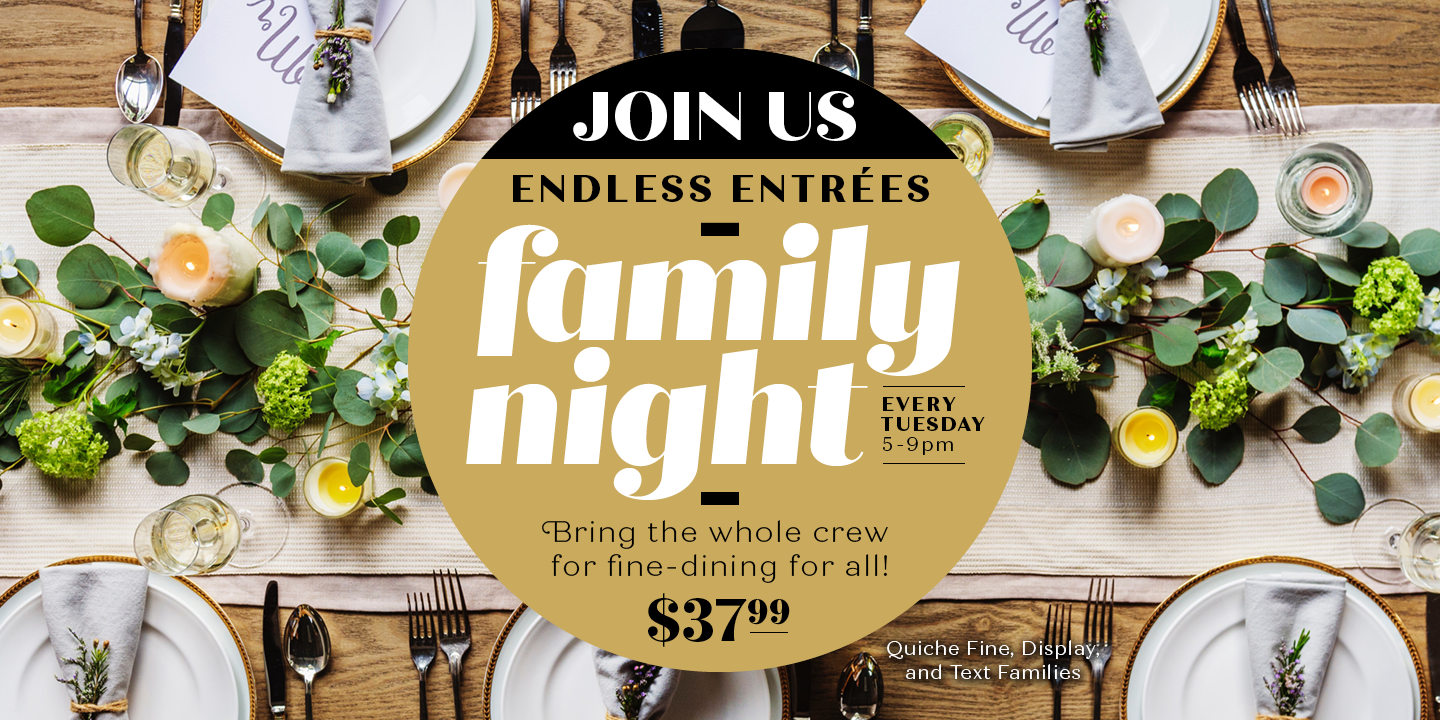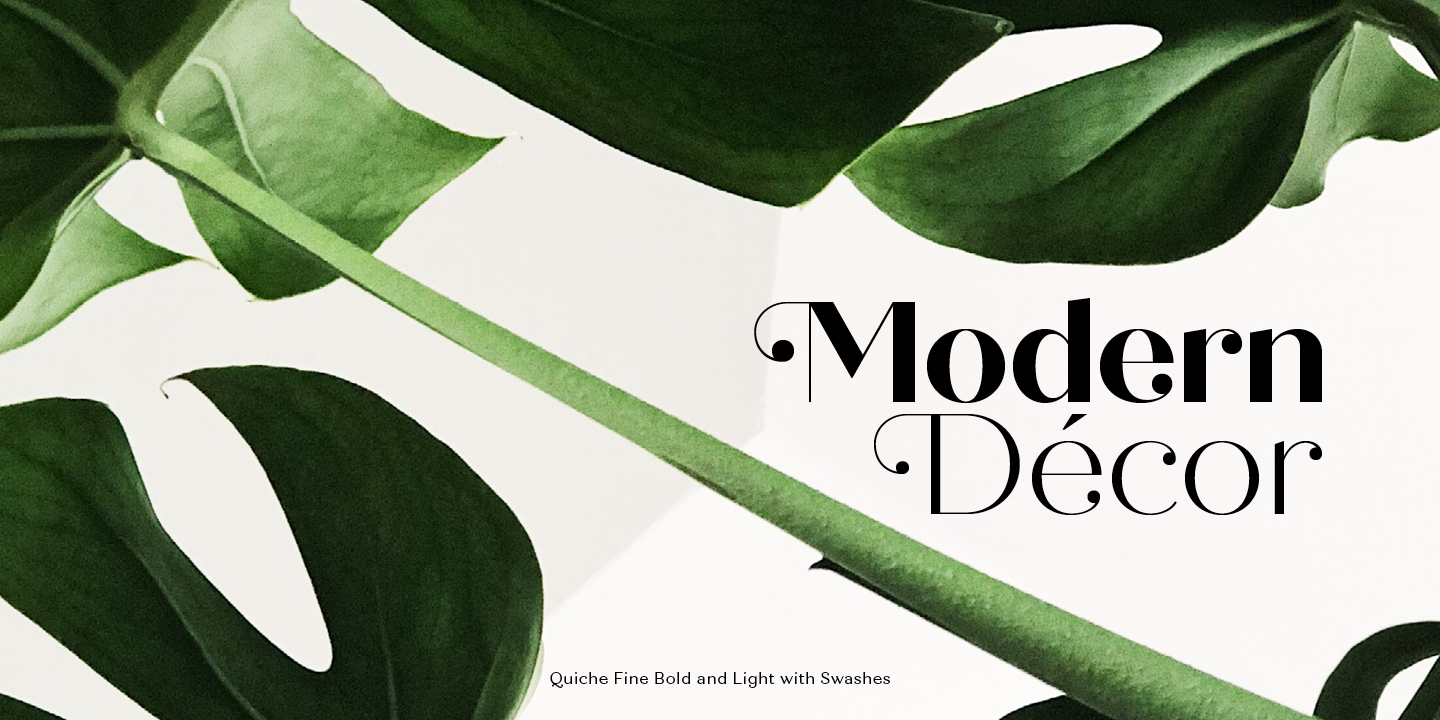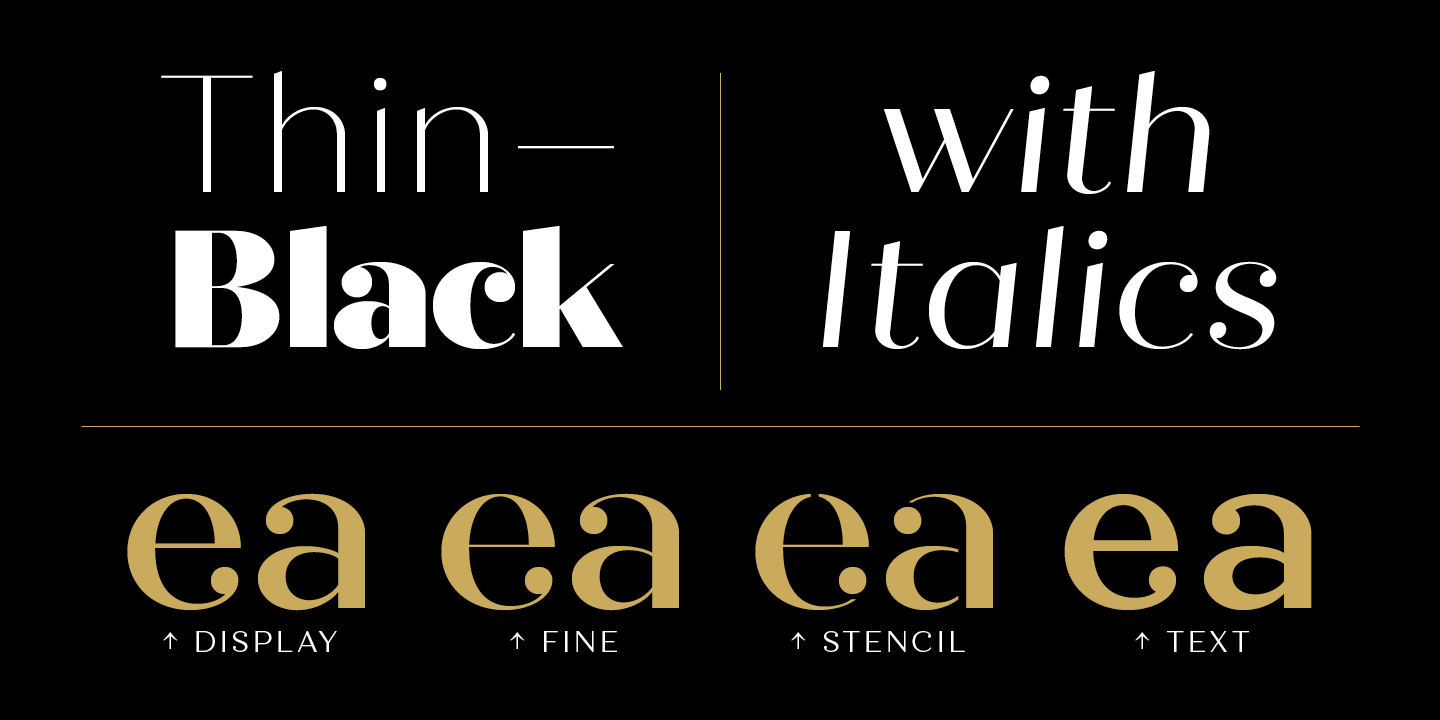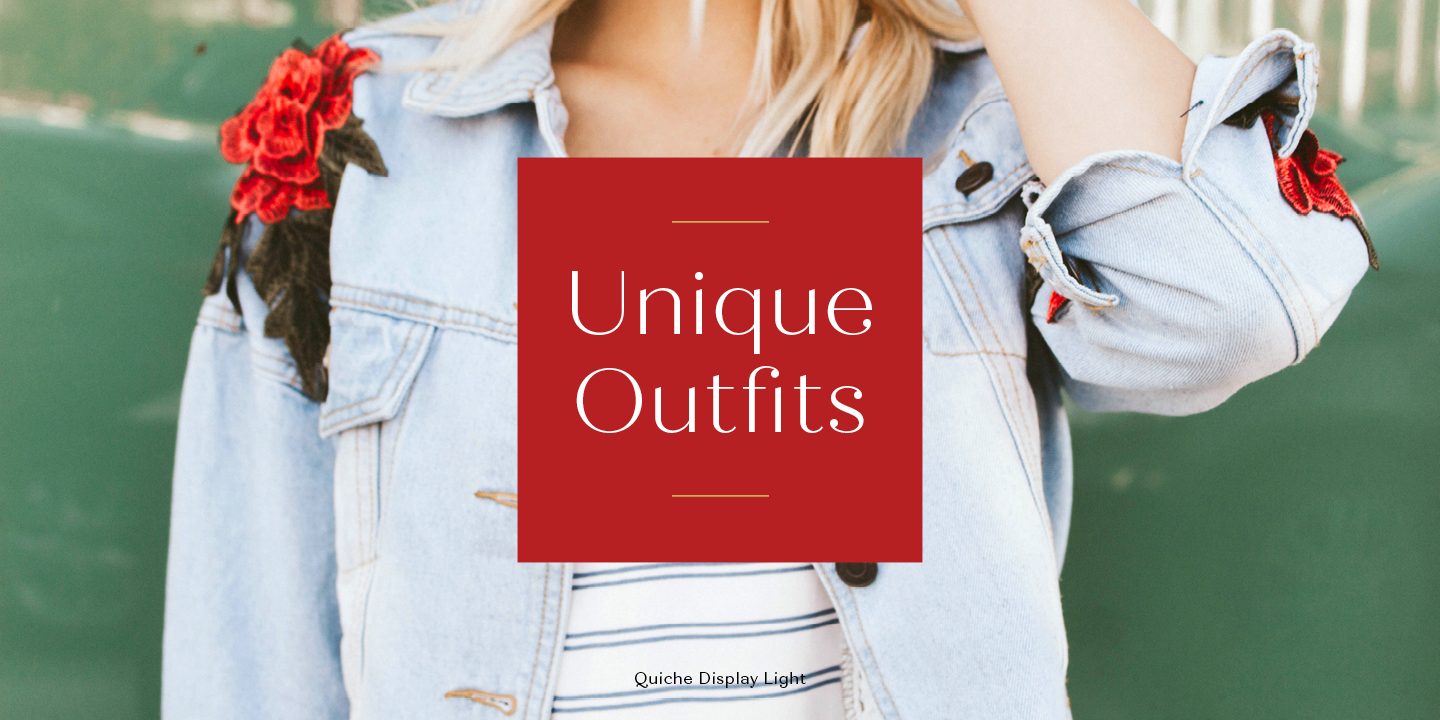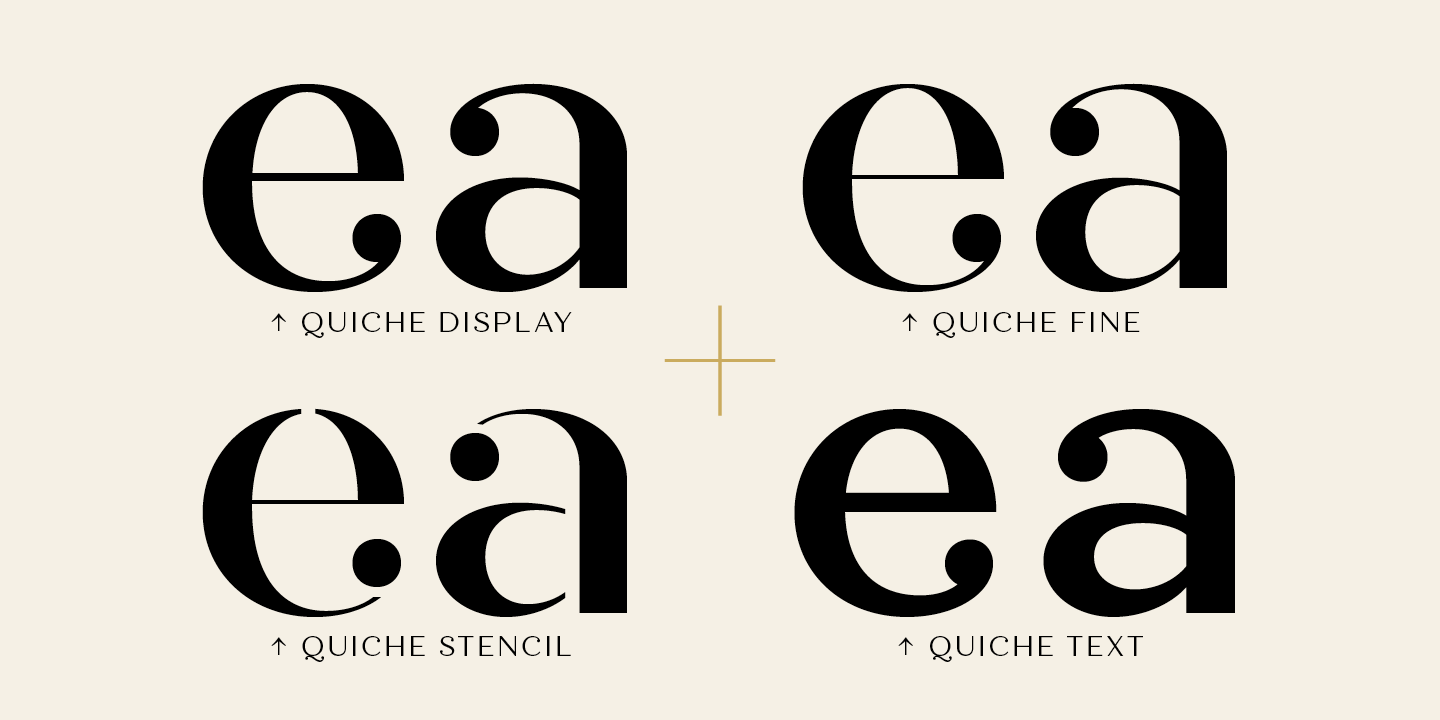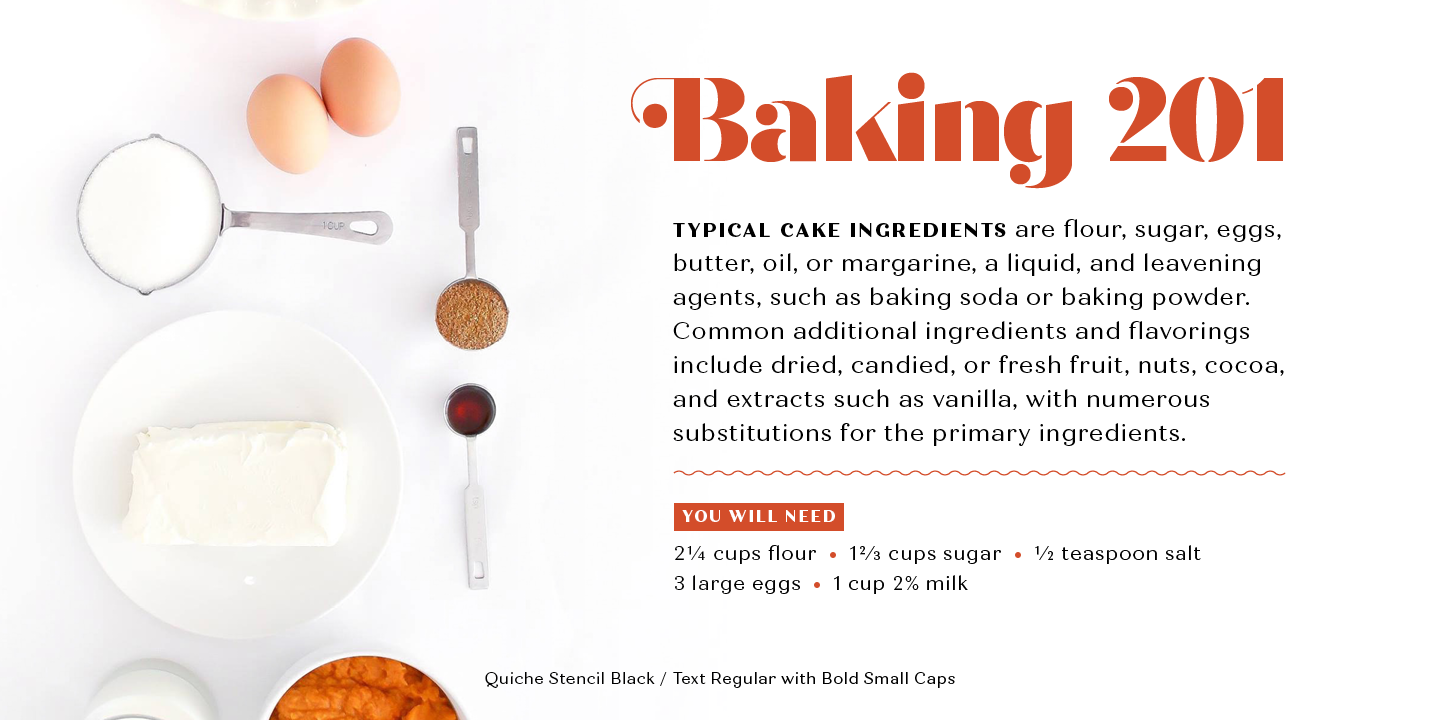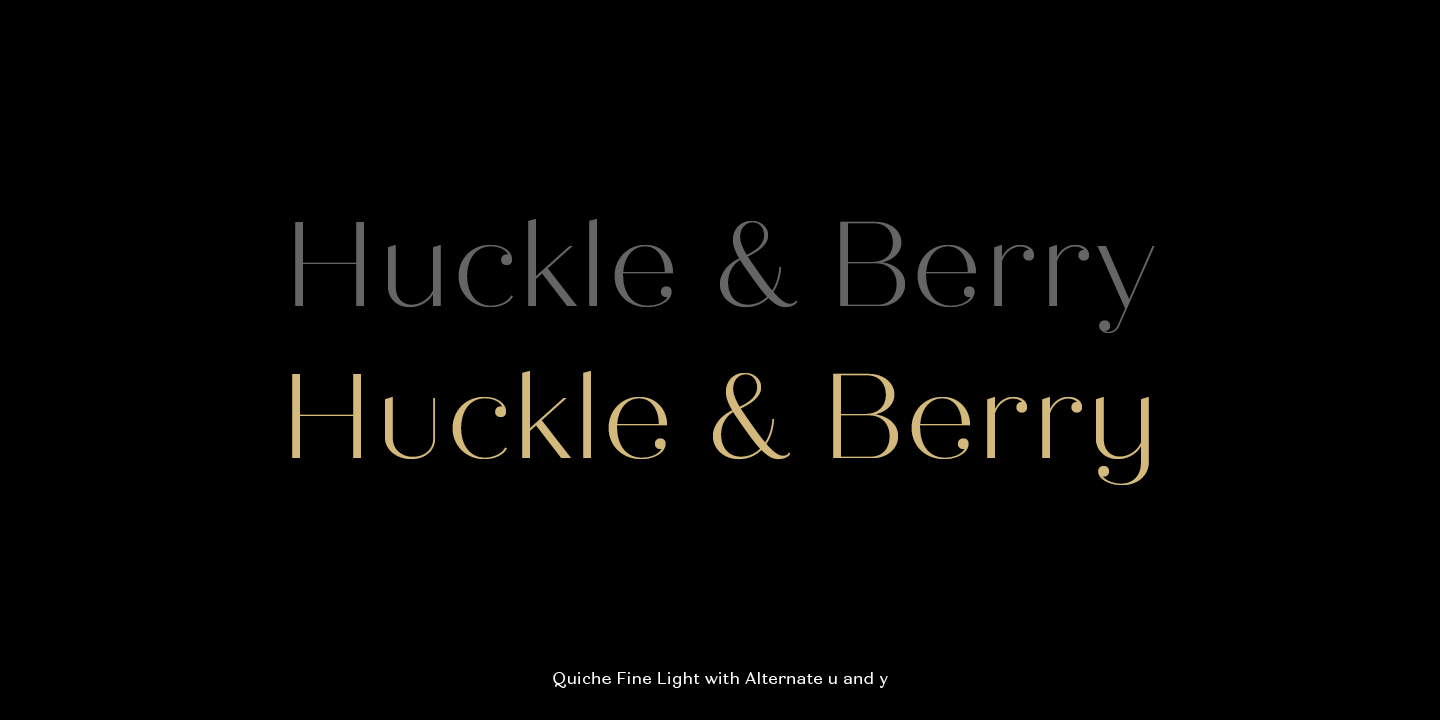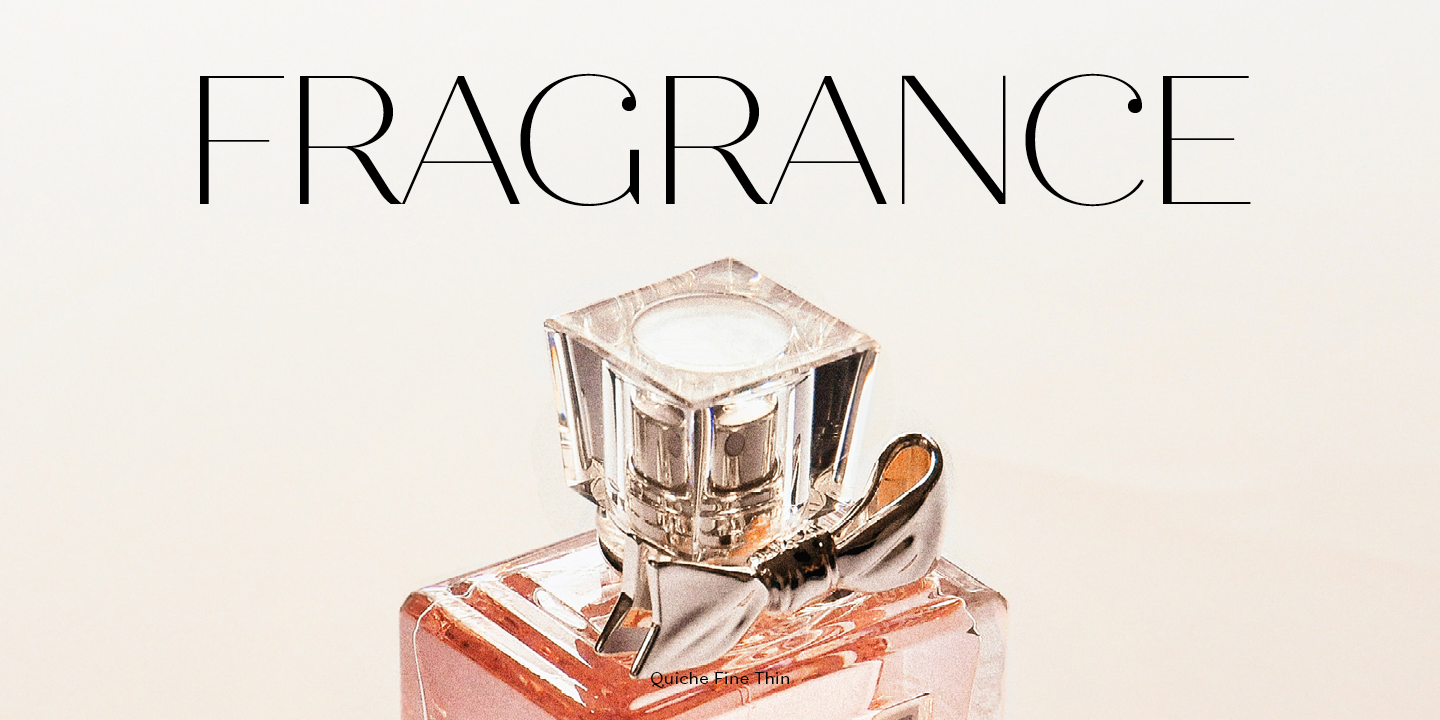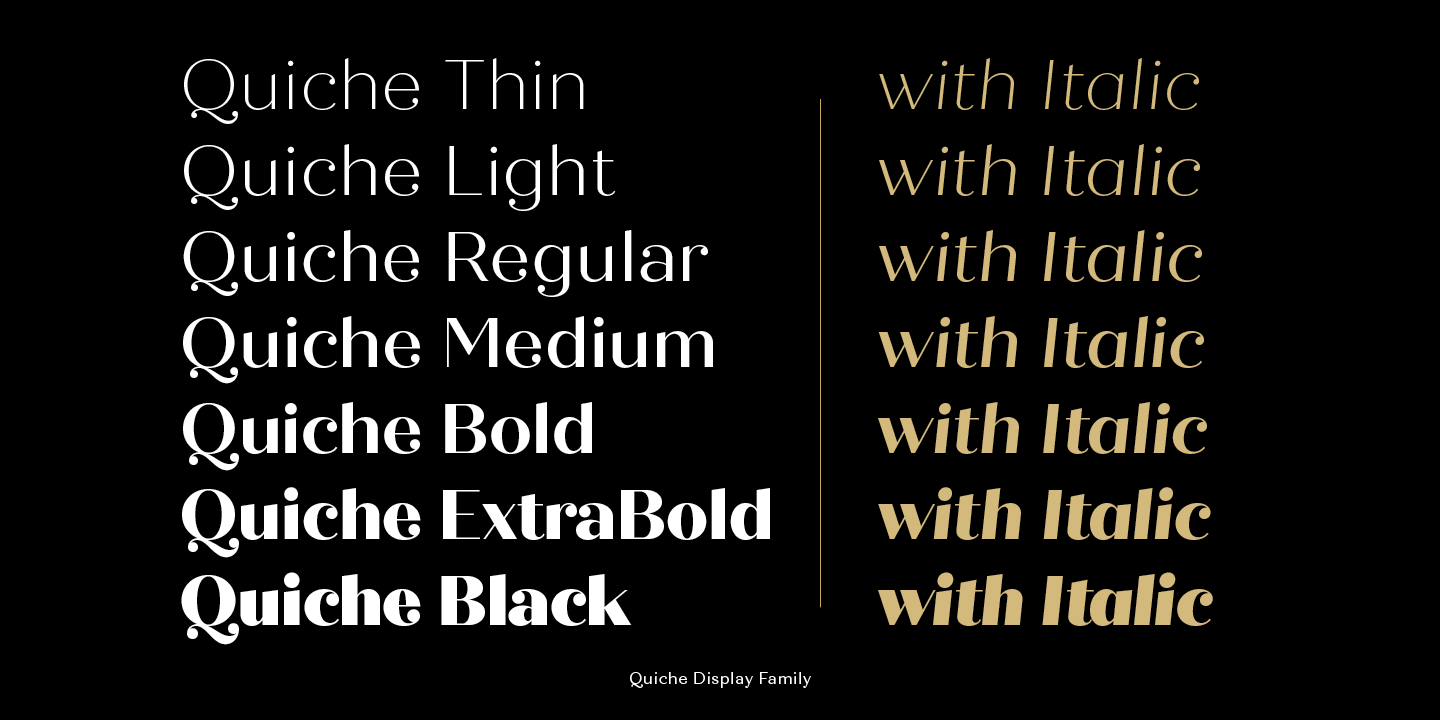
Quiche is a high-contrast, sans serif typeface featuring ball terminals and angled stems. This 52 font superfamily is a complete branding suite. The 4 subfamilies—Display, Fine, Stencil, and Text—were created to work harmoniously together based on the need. With weights ranging from thin to black and matching italics, there are a variety of applications that the fonts can be used for: print, web, branding, advertising, magazines, products, packaging, labels, etc. The design is influenced by the serif didone genre, characterized by its elegance and extreme thick/thins, but it removes the serifs for a unique and modern expression. The high-contrast style exudes sophistication, while the ball terminals balance it by softening the overall look to make it feel a little more approachable. For large type settings, like headlines and titles, use Quiche Display, Fine, or Stencil. The Fine styles have the highest contrast, so their beauty shines at really large sizes. For smaller type settings, like body copy and decks, use Quiche Text. It has less contrast and looser character spacing, making it a better reading experience at these sizes. Quiche has many OpenType features, including: stylistic alternates, swash capitals, ligatures, small caps (Text styles only), fractions, subscripts, and superscripts. This font has extensive Latin language support for Western, Central, and South Eastern European.